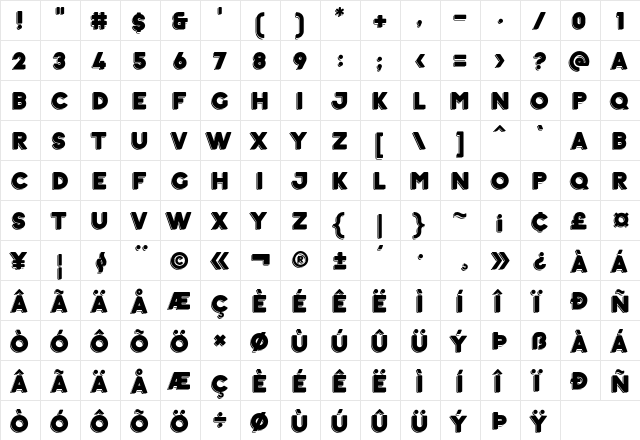
Ephesus extrabold shadow ExtraBold
| Foundry | Ahmet ALTUN |
| Designer | Ahmet ALTUN |
Design Context for Ephesus extrabold shadow Typeface
Ephesus extrabold shadow brings ornamental detail and strong personality to headlines and identities, where visual impact matters more than quiet functionality. The heavy weight commands attention and anchors typographic hierarchies.
Font Pairing: Pair with a clean neutral sans-serif for body copy to let Ephesus extrabold shadow's character lead without overwhelming the composition.
Pro Tip: Treat Ephesus extrabold shadow as the centrepiece of your typographic hierarchy. One strong heading set in a decorative face can carry an entire layout.